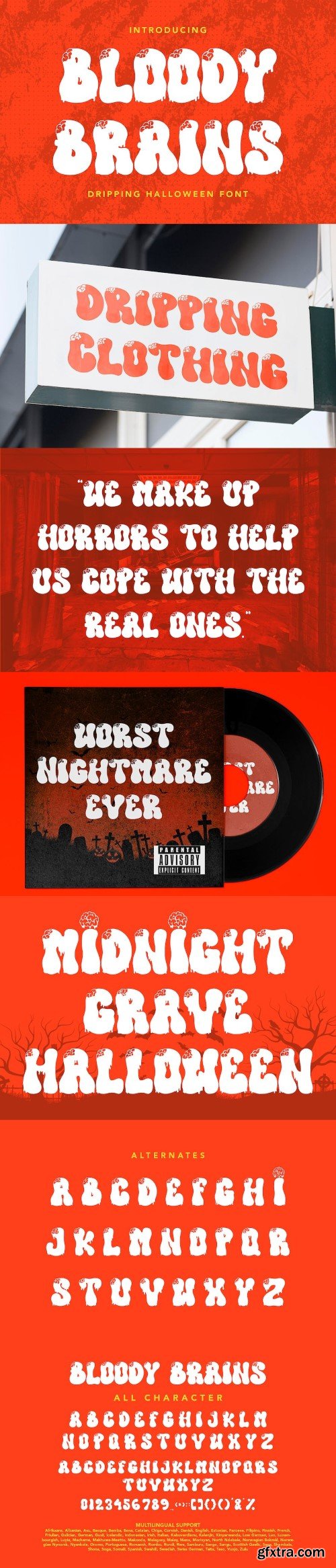
Bloody Brains - Dripping Halloween Font is a display font that is inspired by gothic and horror style because its shape is very unique and is perfect for any project that you will use with this theme.
Bloody Brains with opentype features such stylistic alternates, stylistic sets & ligatures good for logotype, poster, badge, book cover, tshirt design, packaging and any more.